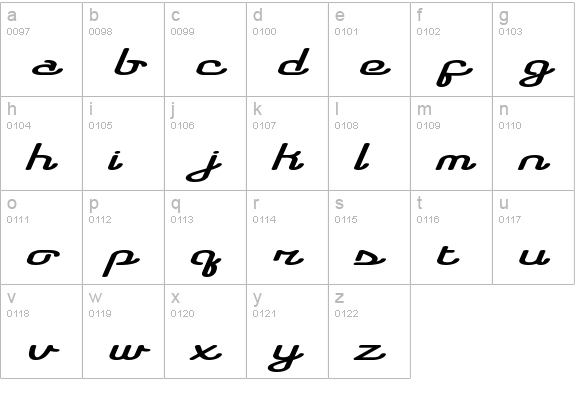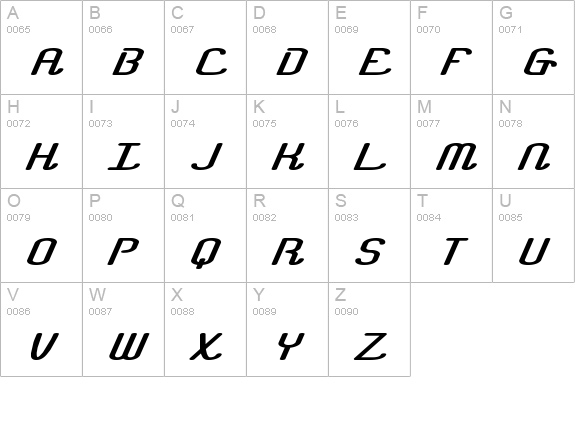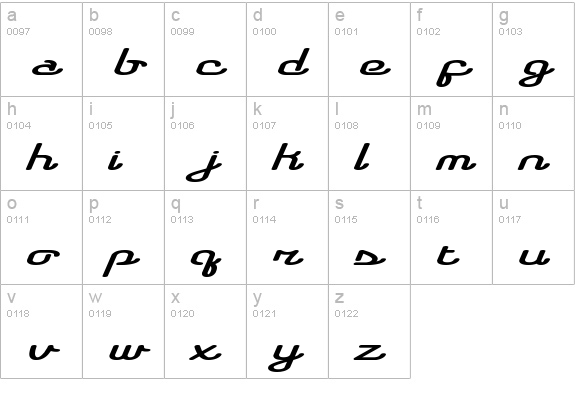
Registry BRK Font Details
Registry BRK is a stunning font that effortlessly combines elegance and modernity. This versatile typeface is perfect for a wide range of design projects, from branding and logo design to packaging and editorial work. With its clean lines and stylish curves, Registry BRK adds a touch of sophistication to any design. One of the best things about Registry BRK is that it is available for free! That's right, this amazing font can be freely downloaded at FontsMarket.com. Whether you're a professional designer or a passionate hobbyist, you can access this incredible font without spending a dime. The designers behind Registry BRK have taken great care to create a font that is not only visually appealing but also highly legible. Each character is meticulously crafted, resulting in a font that is easy to read even at smaller sizes. This makes Registry BRK a fantastic choice for both print and digital projects. Another standout feature of Registry BRK is its extensive character set. With a wide range of glyphs and alternate characters, this font allows you to add unique touches to your designs. Whether you're looking for a stylish ligature or a decorative swash, Registry BRK has you covered. With its timeless beauty and effortless versatility, Registry BRK is a font that will never go out of style. So why wait? Head over to FontsMarket.com and download this incredible font today, for free!